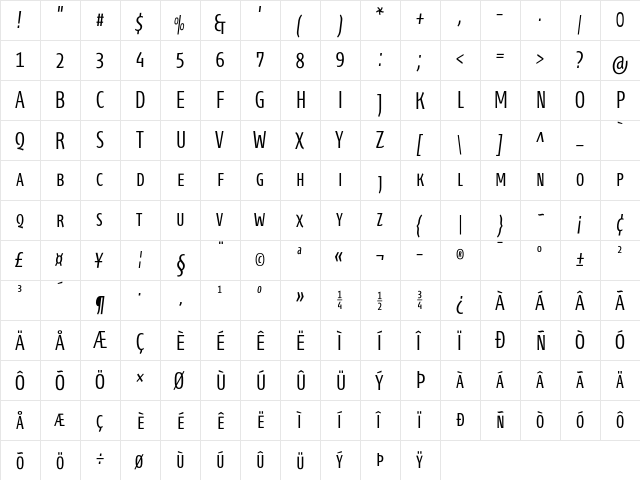
Fontana ND Ee SC Light
Design Context for Fontana ND Ee SC Typeface
Fontana ND Ee SC is a composed and adaptable typeface that performs quietly and consistently across a wide range of design contexts. The delicate stroke weight brings airiness and refinement to layouts.
Pro Tip: Use Fontana ND Ee SC in both headline and body roles to test its range before committing to a single application.